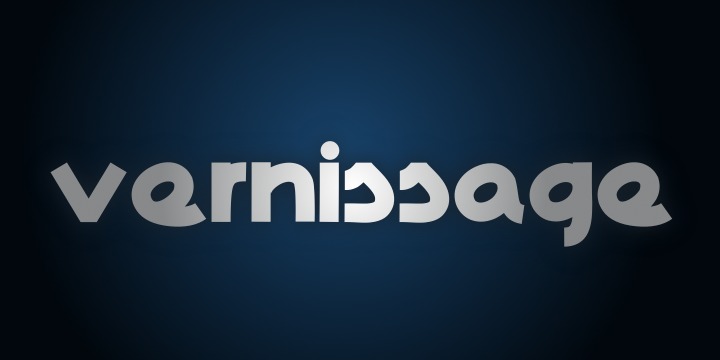
• Vernissage
The Vernissage font was created with the intention of offering a versatile typographic font, dynamic and strong, easy to read in all sizes, providing a high range of uses, and elegant. A typeface that you cannot miss.